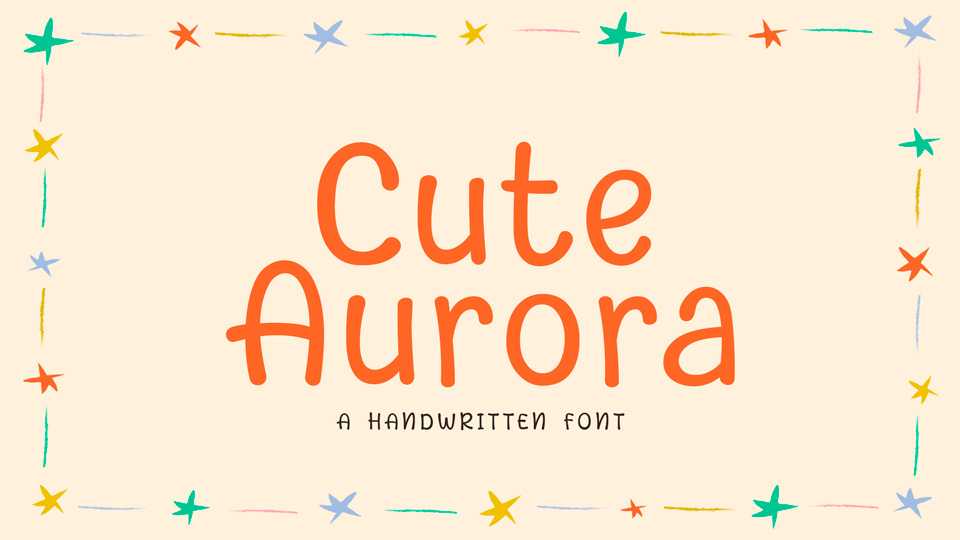
Download Cute Aurora font, a simple and playful handwritten typeface. Cute Aurora is great for cards, notes, quotes, crafts, goods for kids, games and other fun projects.